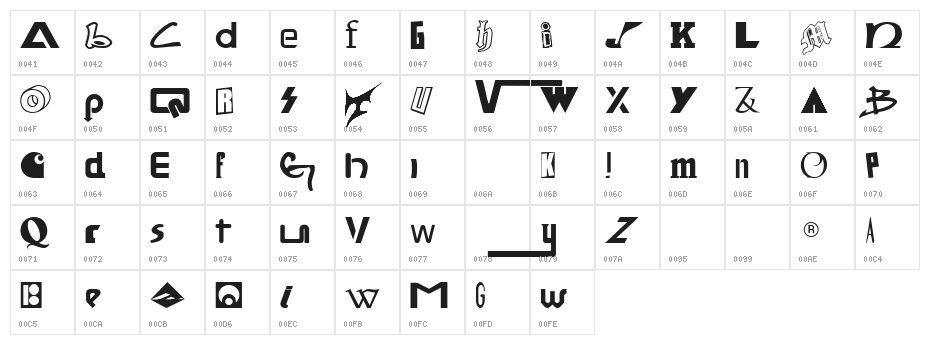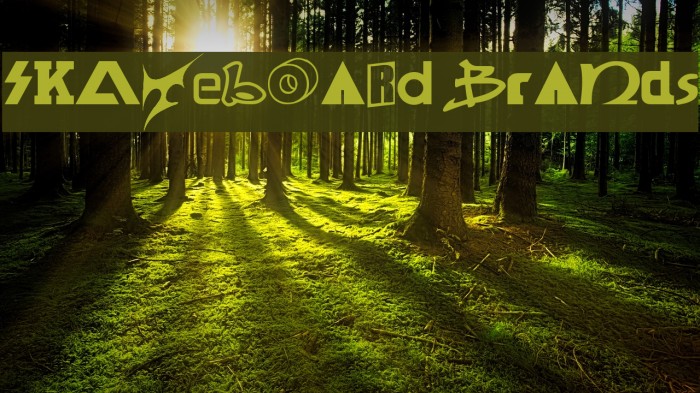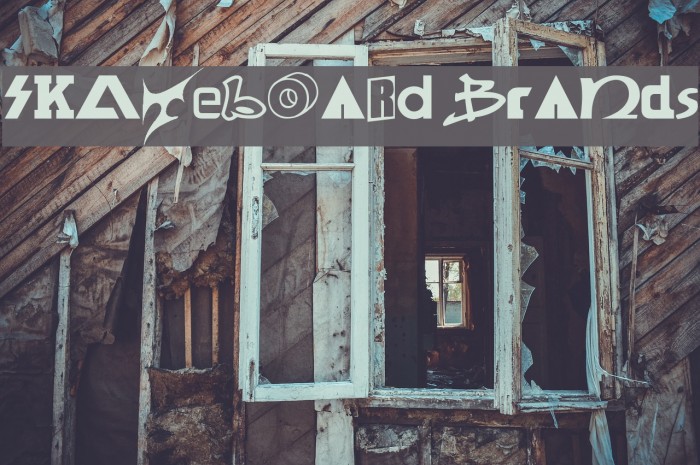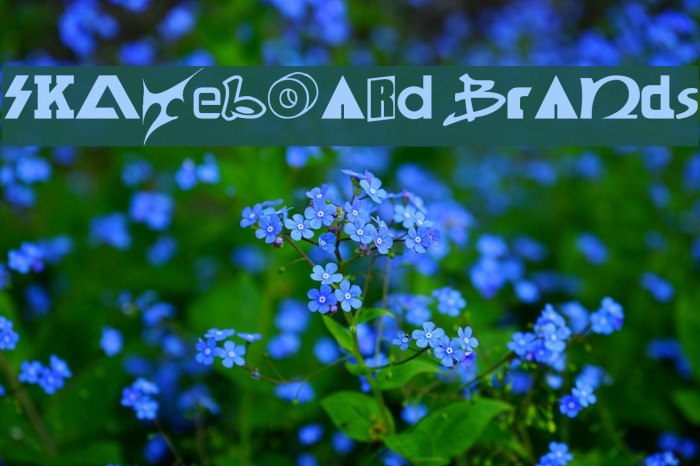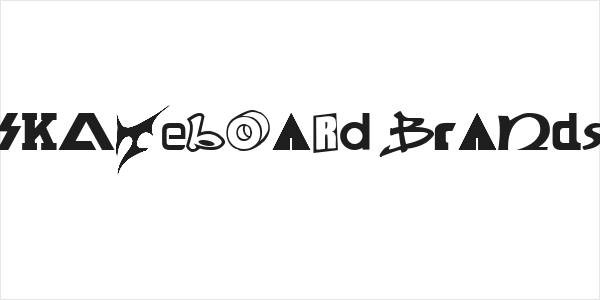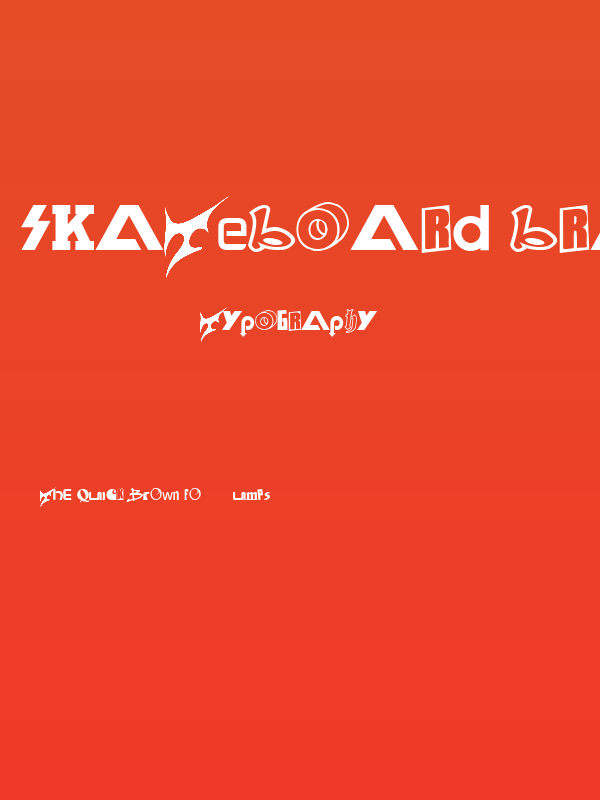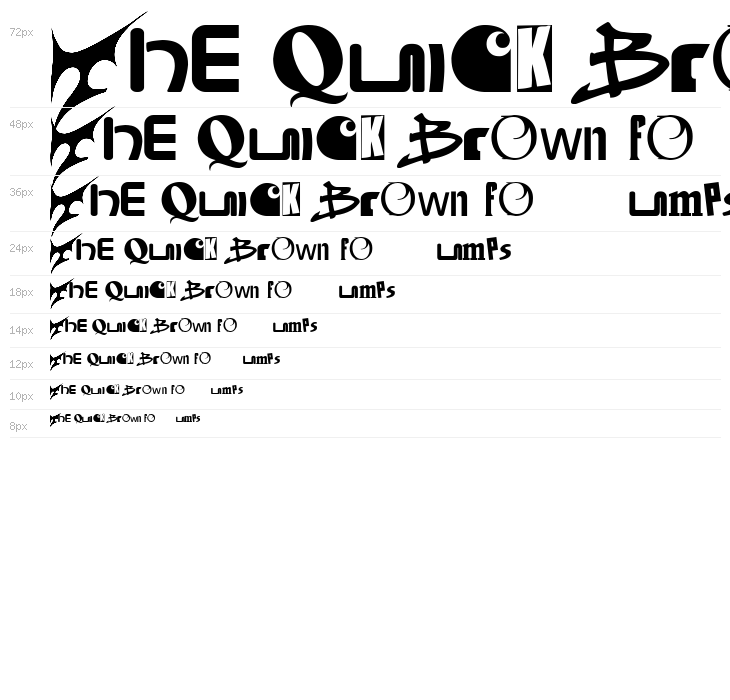
SKATEBOaRD braNds Font
SKATEBOaRD braNds Description
This font is a bold and eclectic display typeface, characterized by its diverse and dynamic letterforms. Each character exhibits a unique style, ranging from geometric and angular shapes to more fluid and organic forms. The uppercase letters are particularly striking, with some incorporating elements of graffiti and street art, while others have a more retro or futuristic feel. The lowercase letters maintain this diversity, offering a playful and unconventional aesthetic. The font is highly decorative, making it ideal for creative and attention-grabbing designs. It embodies a sense of rebellion and individuality, perfect for projects that aim to stand out.
| Overall Style | Modern, Urban, Eclectic |
| Proposed Projects | Ideal for skateboarding brands, streetwear logos, album covers, and poster designs. |